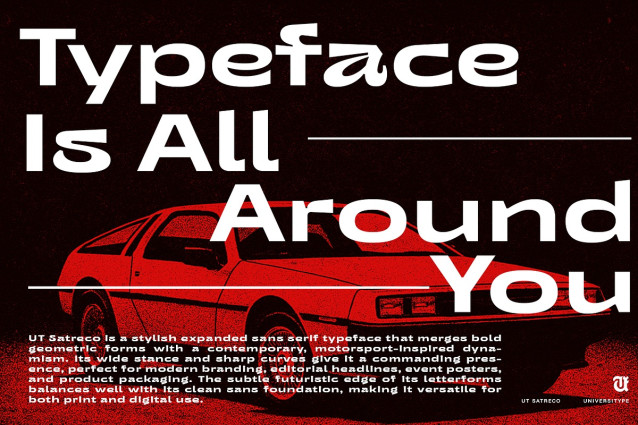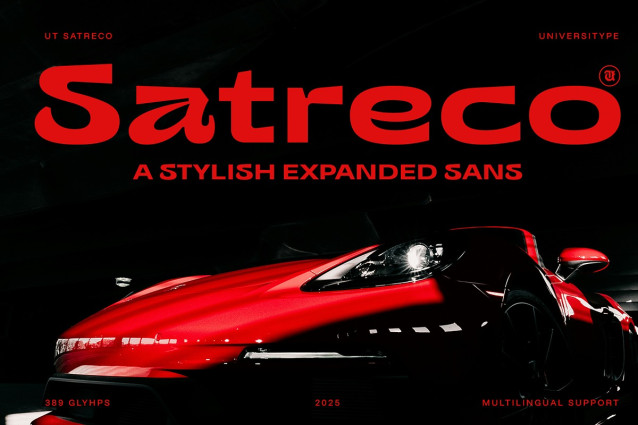
UT Satreco Font
UT Satreco Font is more than just a font—it’s a statement piece. Bold, wide, and unapologetically modern, this expanded sans brings a powerful presence to any design. Its sharp curves and geometric structure echo speed, confidence, and futuristic flair, making it the kind of typeface that refuses to blend into the background. Whether it’s a headline, a poster, or a brand identity, UT Satreco grabs attention and holds it.